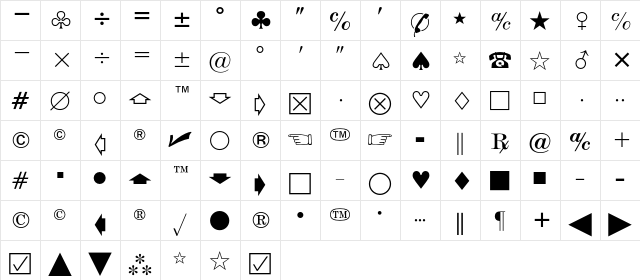
Universal News w. Commercial Pi 97
Style: News w. Commercial Pi 97
Design Context for Universal
Universal is a composed and adaptable typeface that performs quietly and consistently across a wide range of design contexts.